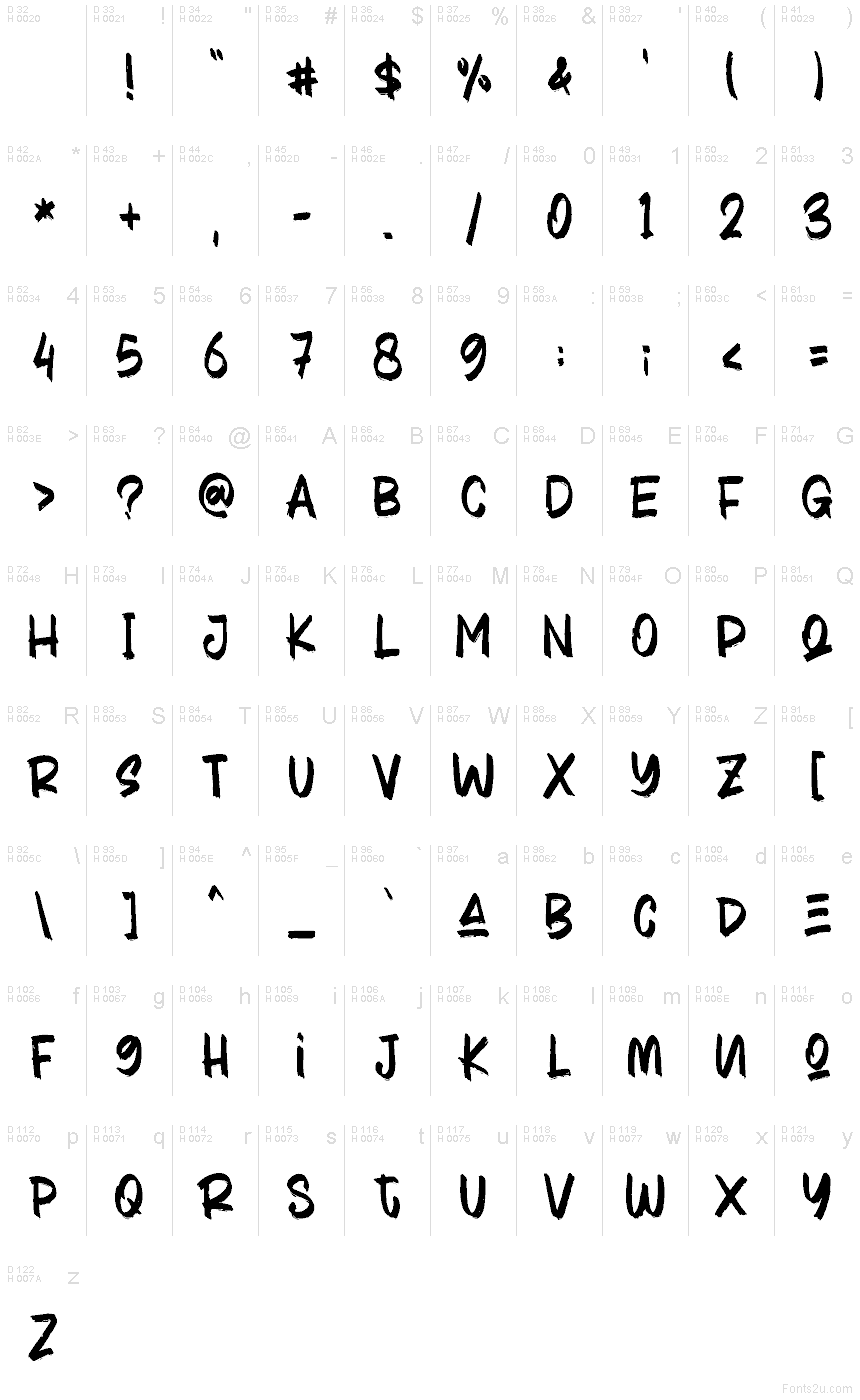
Iron Jarvis font by Letterafa Studio is a free brush font. Its defining kick is the gritty, dry-brush texture—thick sweeps crash into razor-edged cuts, with lively baseline hops that feel hand-thrown yet controlled. The strokes look inky and slightly frayed, giving graffiti energy while keeping words readable at a glance.
Using Iron Jarvis, headlines punch through busy layouts thanks to dense texture and confident rhythm. It shines on streetwear logos, album covers, sports posters, energy drink packaging, YouTube thumbnails, and festival banners. This free font loves big sizes and tight tracking; for body copy, pair it with a clean condensed sans-serif to balance the roughness and keep the message crisp.